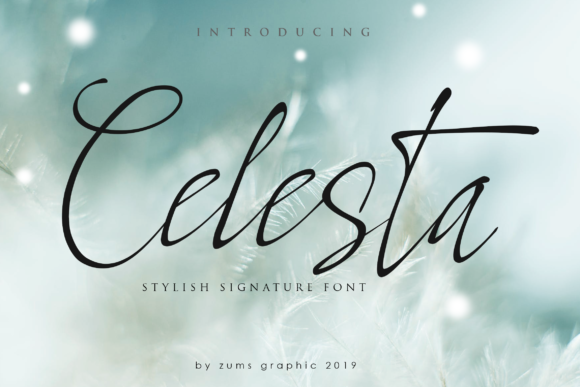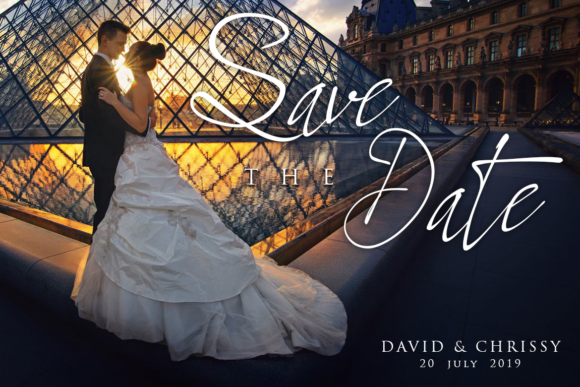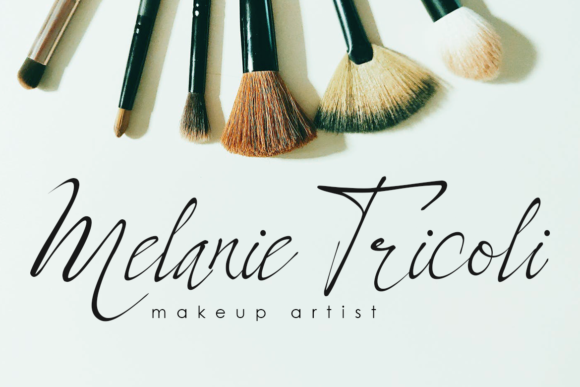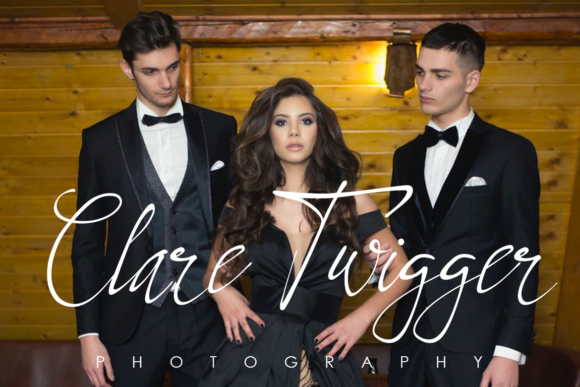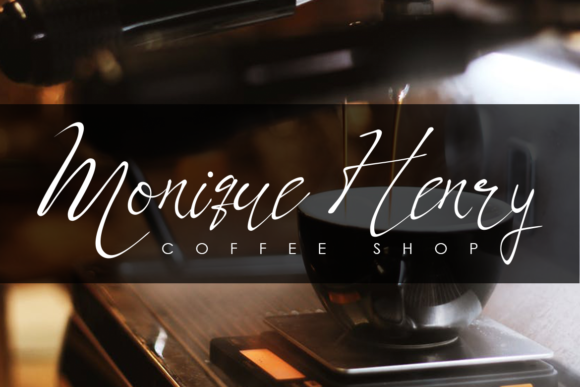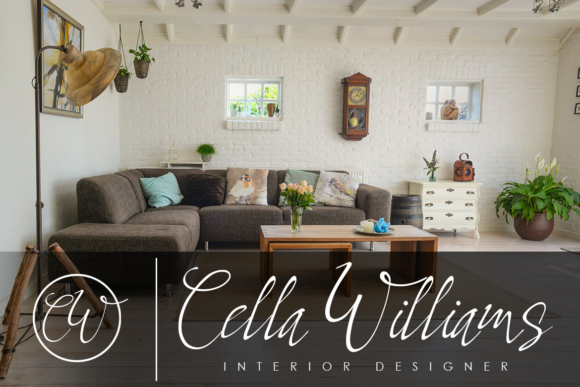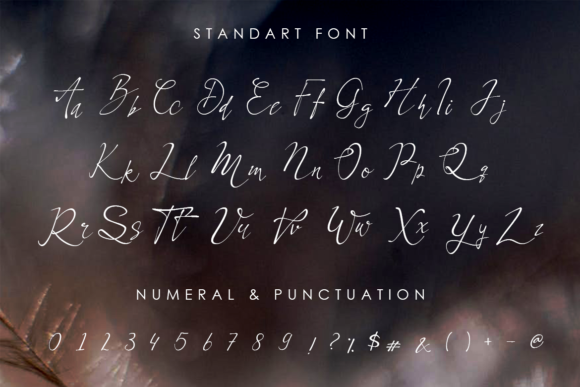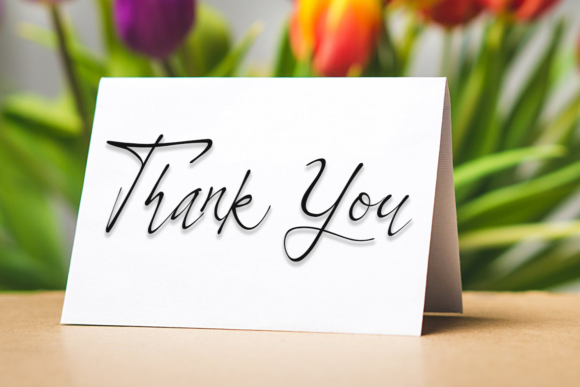
Celesta Font
About Celesta Font
Celesta is a script font suitable for logos, quotes, magazines, posters, and much more. With a natural hand-made touch, this font adds uniqueness to your design project.